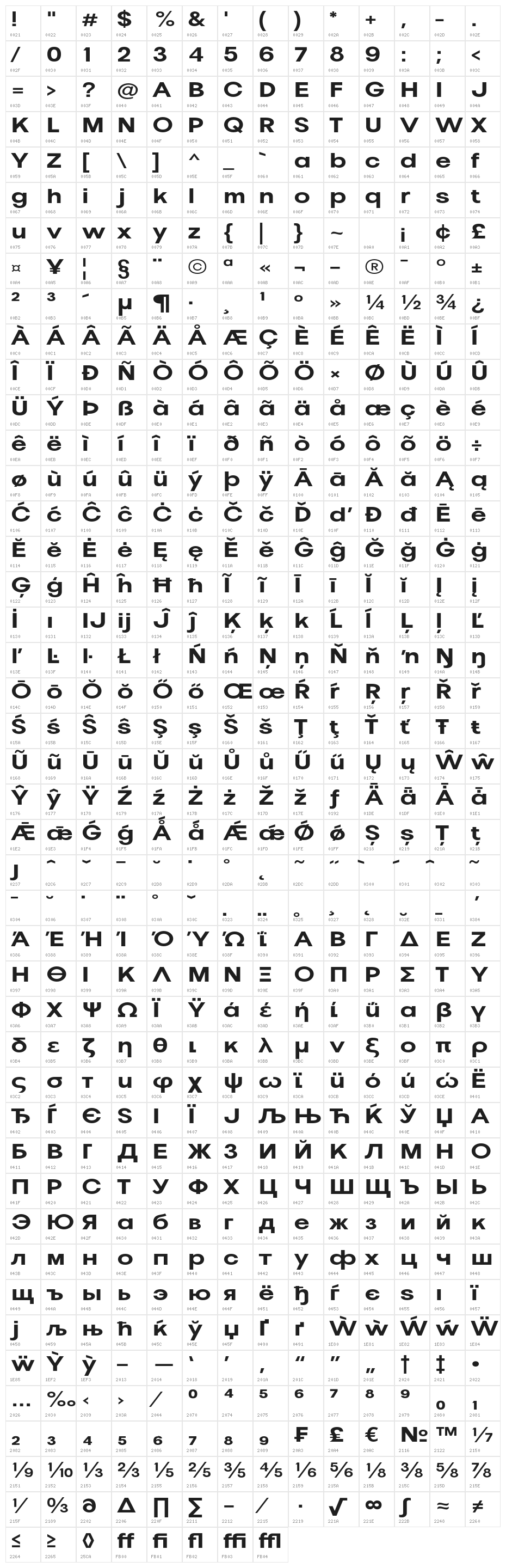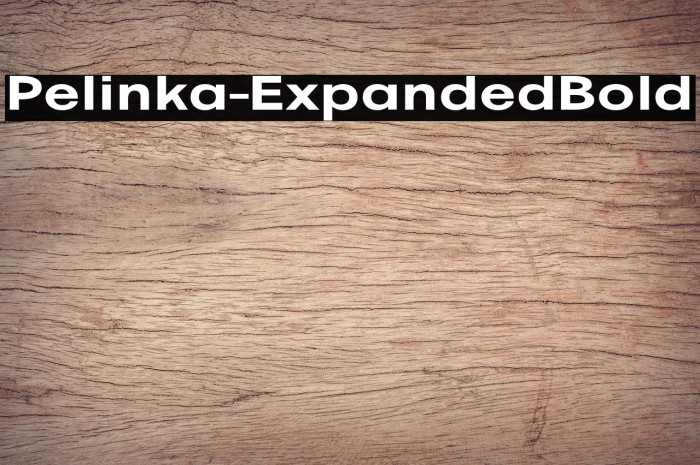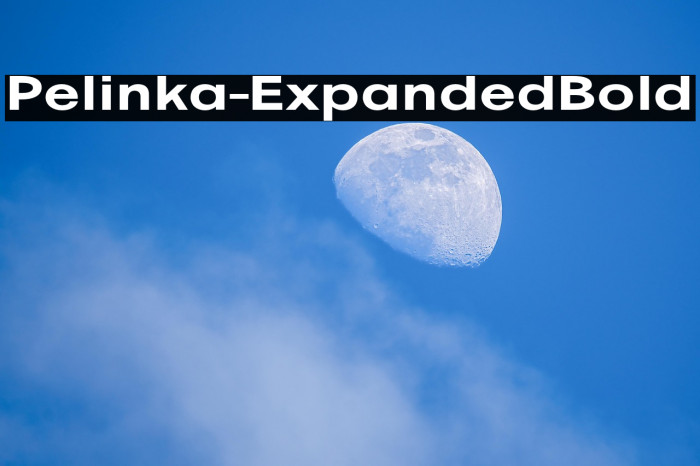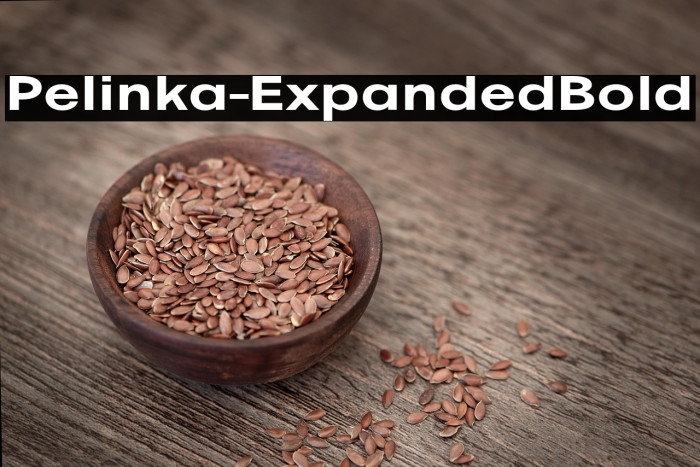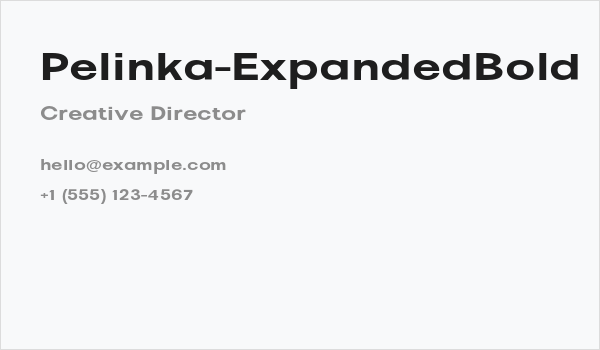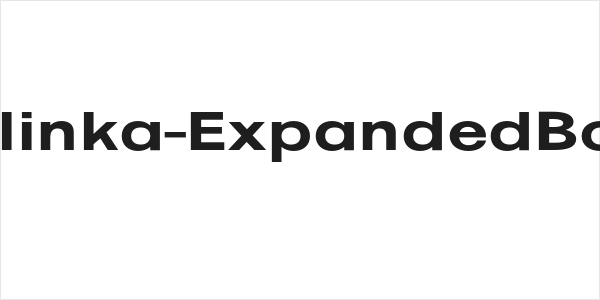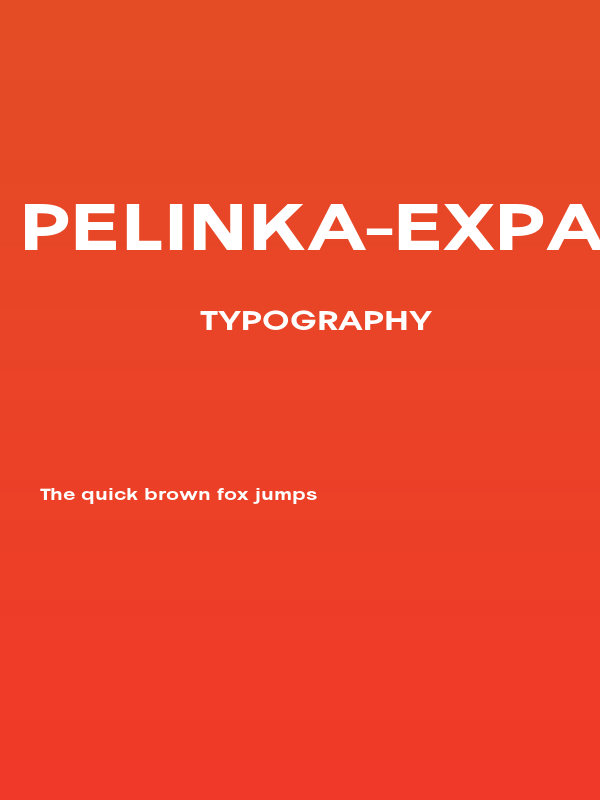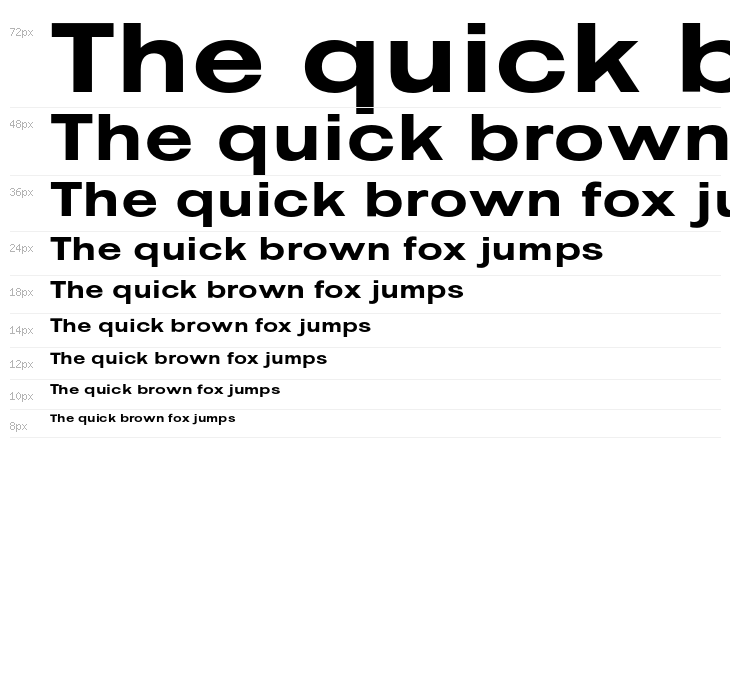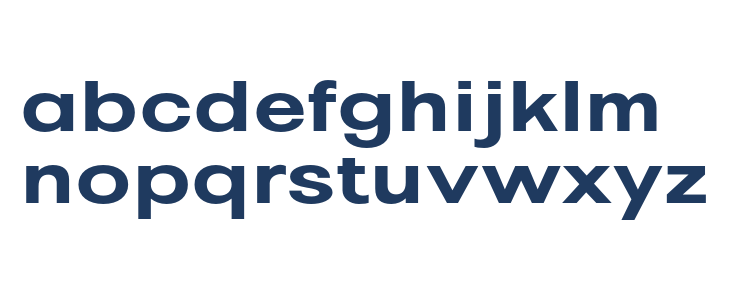
Pelinka-ExpandedBold Font
Pelinka-ExpandedBold Description
This font features a bold and expanded style, characterized by its strong presence and clear readability. The uppercase and lowercase letters are well-proportioned, with a consistent stroke weight that adds to its modern appeal. The numerals are equally bold, ensuring they stand out in any design. The special characters are designed with the same attention to detail, making them suitable for various applications. The overall look is clean and professional, making it a versatile choice for a wide range of design projects.
Proposed ProjectsIdeal for branding, headlines, posters, and advertising materials where a strong visual impact is required.